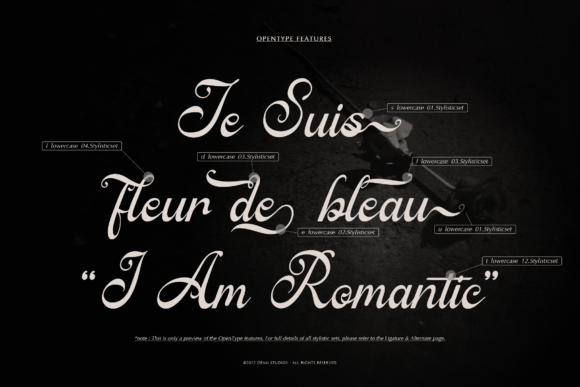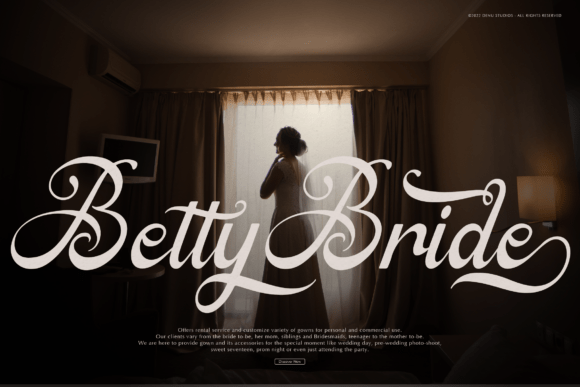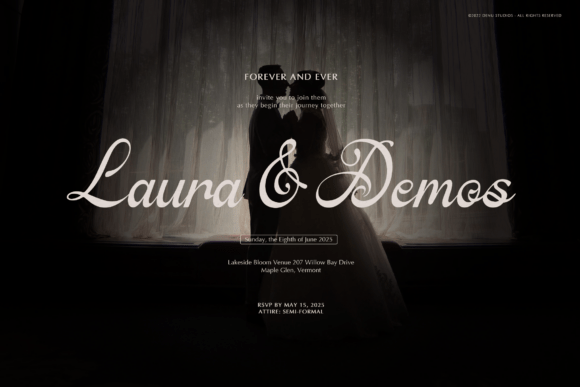
Introduction to Ratfeylino Font
Ratfeylino is a sophisticated calligraphy font crafted with refined elegance and timeless charm.
Featuring graceful curves, stylish alternates, and flowing ligatures, it’s perfect for luxury branding, wedding designs, invitations, fashion labels, and elegant packaging With over 350 glyphs and multilingual support, Ratfeylino offers both beauty and versatility for high-end design projects.
Key Features of Ratfeylino Font
Why Choose Ratfeylino Font?
Ratfeylino Font offers exceptional quality and versatility, making it a valuable addition to your design toolkit. Whether you’re creating for personal projects or commercial use, Ratfeylino Font delivers professional results.